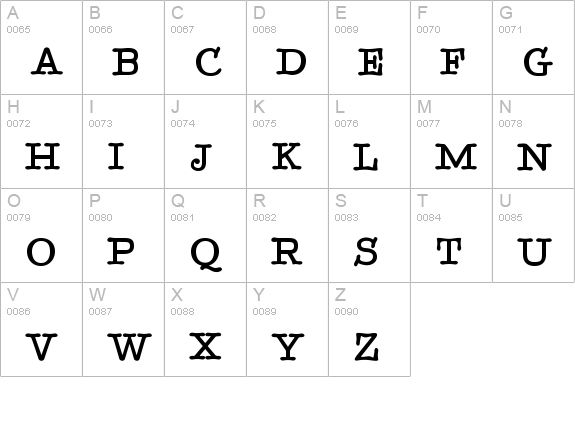
TypenradBold is a striking and versatile font that exudes confidence and modernity. With its bold and strong letterforms, this typeface commands attention and adds a touch of elegance to any design project. Its clean lines and geometric shapes give it a contemporary feel, making it perfect for branding, headlines, and display purposes. This font is not only visually appealing but also highly legible, ensuring that your message is delivered with clarity and impact. It offers a harmonious balance between readability and style, making it suitable for a wide range of applications, from print to digital media. One of the standout features of TypenradBold is that it is available for free download at FontsMarket.com. This means that designers and enthusiasts alike can access this exceptional font without any cost, making it an ideal choice for those working on a budget or looking for high-quality fonts without breaking the bank. Whether you're a professional designer, a student, or simply someone who appreciates well-crafted typography, TypenradBold is a font that will not disappoint. Its versatility, legibility, and modern aesthetic make it a valuable addition to any font library. So why wait? Head over to FontsMarket.com and download TypenradBold today to elevate your designs and make a lasting impression.